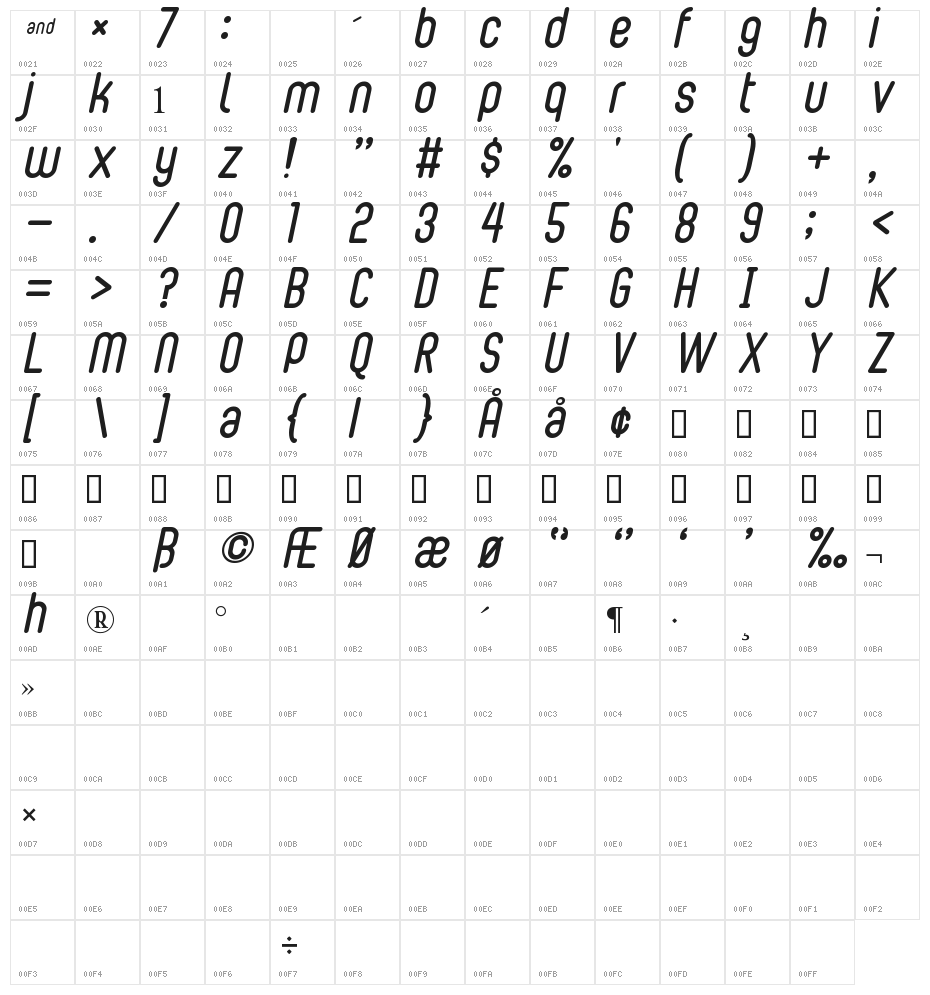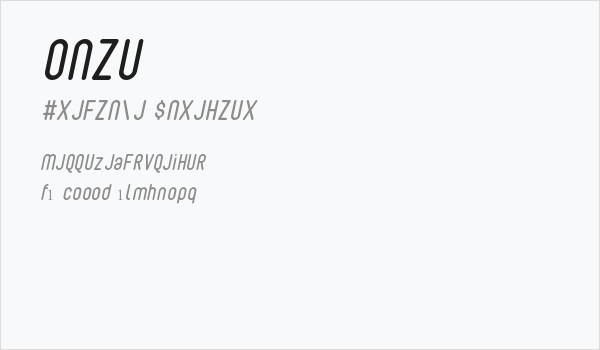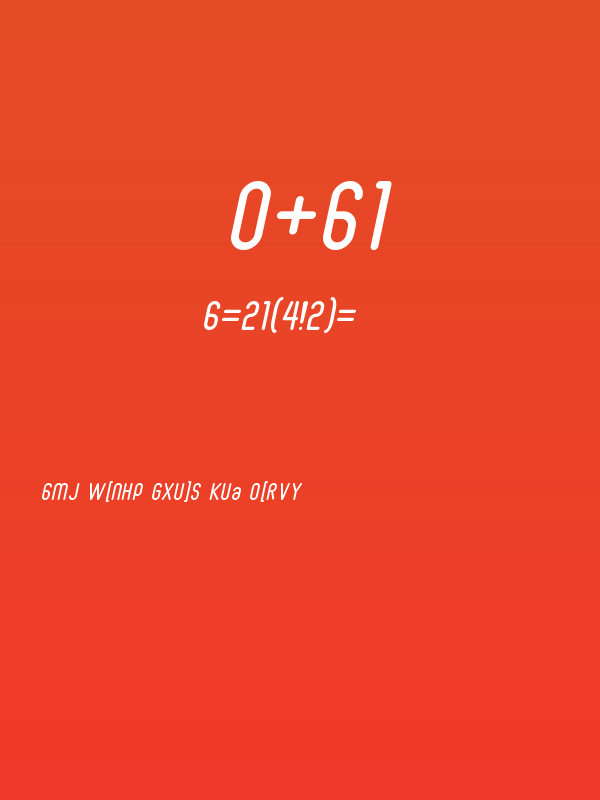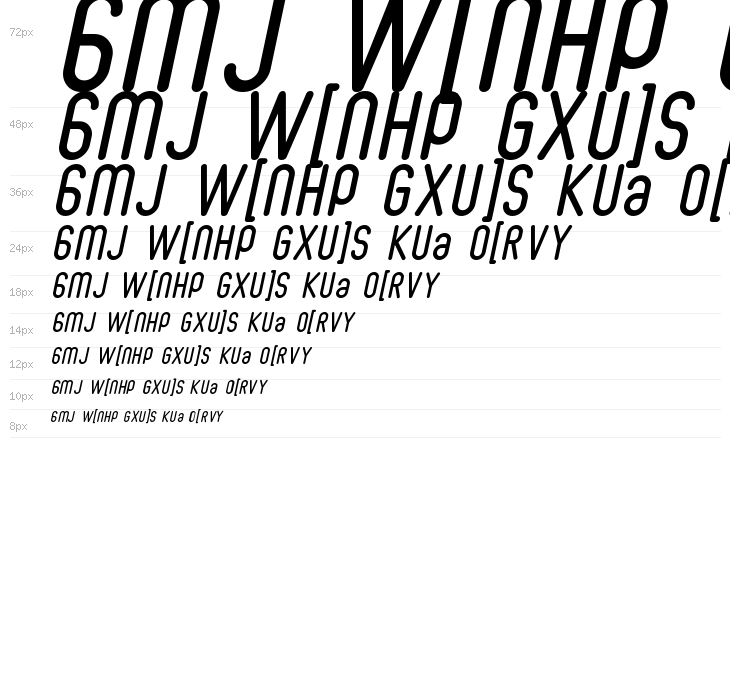
Nito Font
Nito Description
This font features a modern and sleek design with a slightly condensed appearance. The characters are rounded with smooth curves, giving it a friendly and approachable feel. The uppercase letters are tall and narrow, while the lowercase letters maintain a consistent height, enhancing readability. Numbers are clear and distinct, with a uniform width that complements the overall style. The special characters are well-integrated, maintaining the font's cohesive look. This font's clean lines and balanced proportions make it versatile for various design applications.
| Use Case | Headlines, Logos, Digital Media |
| Proposed Projects | Ideal for branding, advertising, packaging, and digital media projects that require a contemporary and approachable look. |